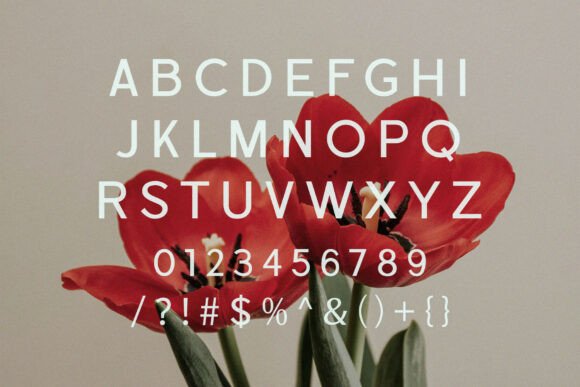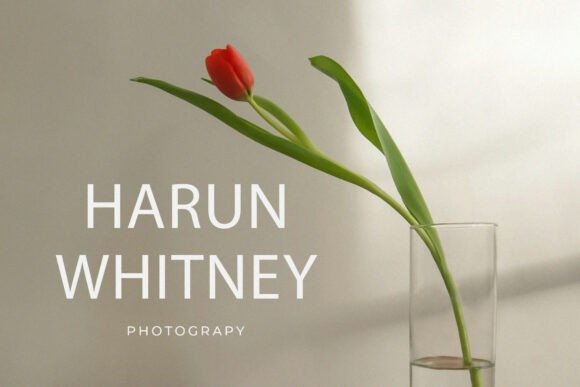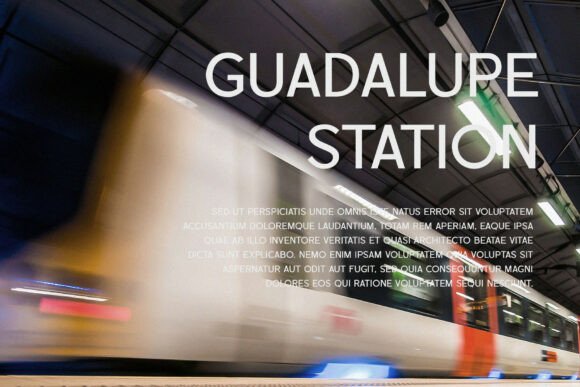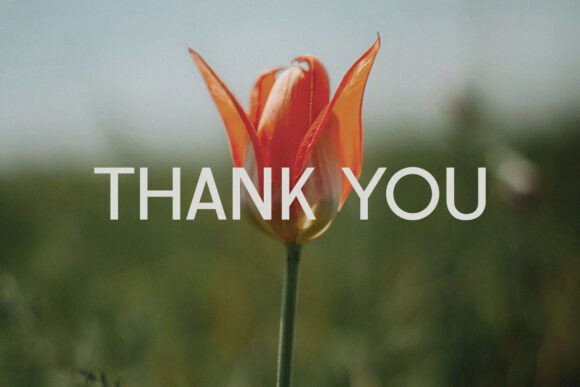
Introducing Cardio Font: The Ultimate Sans Serif for Modern Design
In the world of typography, fonts play a crucial role in conveying messages, expressing creativity, and building brand identities. For designers, crafters, and marketers, finding the perfect font can be a daunting task. However, if you’re looking for a clean, modern, and versatile sans serif font, look no further than Cardio Font. In this article, we’ll dive into the features, benefits, and uses of Cardio Font, and explore why it’s becoming a go-to choice for professionals.
What is Cardio Font?
Cardio Font is a sleek and minimalist sans serif font designed for versatility and functionality. Its geometric precision and open character design make it perfect for a wide range of applications, from digital platforms to brand identity and advertising layouts. With its clean lines, simple shapes, and modern aesthetic, Cardio Font is ideal for designers seeking a font that can adapt to various design needs.
Key Features of Cardio Font
- Clean and Modern Design: Cardio Font boasts a sleek, minimalist appearance that exudes professionalism and sophistication.
- Geometric Precision: The font’s geometric design ensures perfect proportions, making it easy to read and visually appealing.
- Open Character Design: The open character design of Cardio Font allows for excellent legibility, even at smaller font sizes.
- Versatility: Cardio Font works seamlessly across digital platforms, brand identity, and advertising layouts, making it a versatile choice for designers.
Benefits of Using Cardio Font
So, why choose Cardio Font for your design projects? Here are some benefits that make it an attractive option:
- Enhanced Readability: Cardio Font’s clean design and geometric precision ensure excellent readability, even in small font sizes or on various digital devices.
- Professional Look and Feel: The font’s modern aesthetic and sleek lines give your designs a professional and polished look, perfect for branding, advertising, and marketing materials.
- Flexibility: Cardio Font’s versatility allows you to use it across various design projects, from digital platforms to print materials, without compromising on style or legibility.
- Time-Saving: With Cardio Font, you can save time searching for the perfect font, as it can be used for a wide range of applications, reducing the need for multiple font choices.
Use Cases for Cardio Font
Cardio Font is suitable for various design projects, including:
- Branding and Identity: Use Cardio Font to create a professional and modern brand identity, including logos, business cards, and letterheads.
- Digital Platforms: Cardio Font works seamlessly on websites, mobile apps, and social media platforms, ensuring a consistent brand image across digital channels.
- Advertising and Marketing: The font’s clean design and geometric precision make it perfect for advertising layouts, brochures, and marketing materials.
- Print Materials: Cardio Font can be used for print materials, such as posters, flyers, and booklets, to create a professional and polished look.
| Font Name | Cardio Font |
| Author | Ariya Works Studio |
In conclusion, Cardio Font is a versatile and modern sans serif font that offers a range of benefits for designers, crafters, and marketers. Its clean design, geometric precision, and open character design make it perfect for various design projects, from digital platforms to brand identity and advertising layouts. With Cardio Font, you can enhance readability, achieve a professional look and feel, and save time searching for the perfect font. Whether you’re a seasoned designer or a crafty DIY enthusiast, Cardio Font is an excellent addition to your typography toolkit.